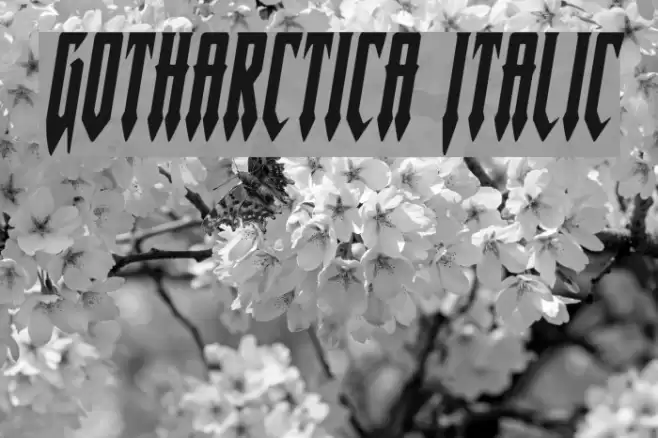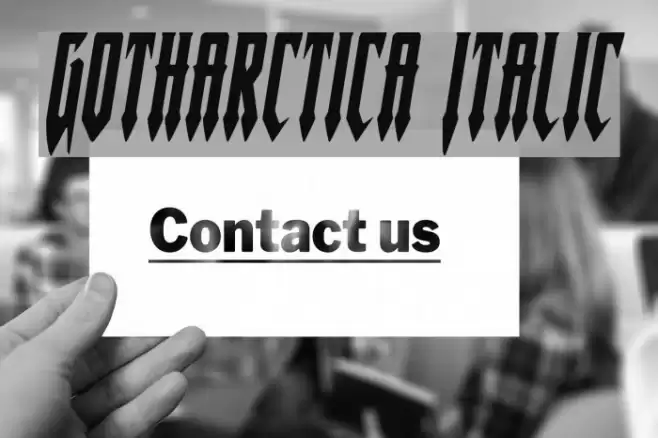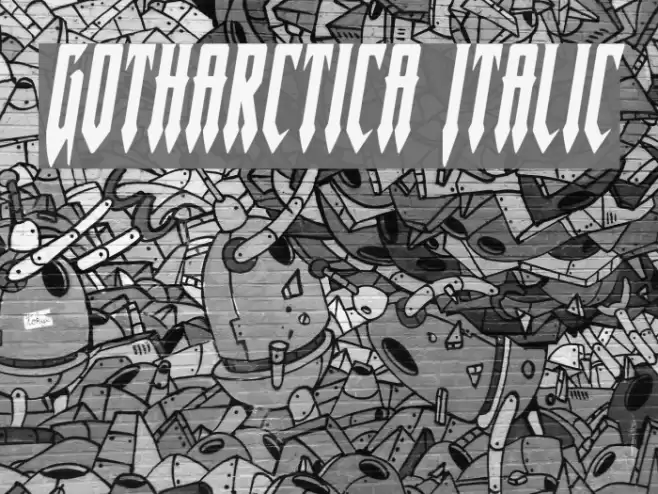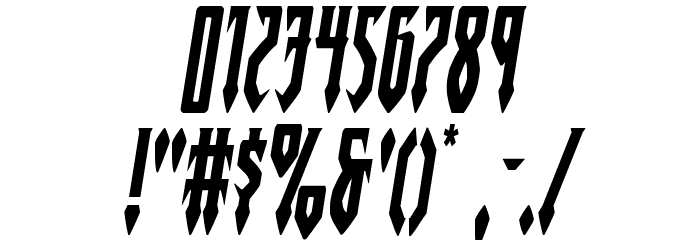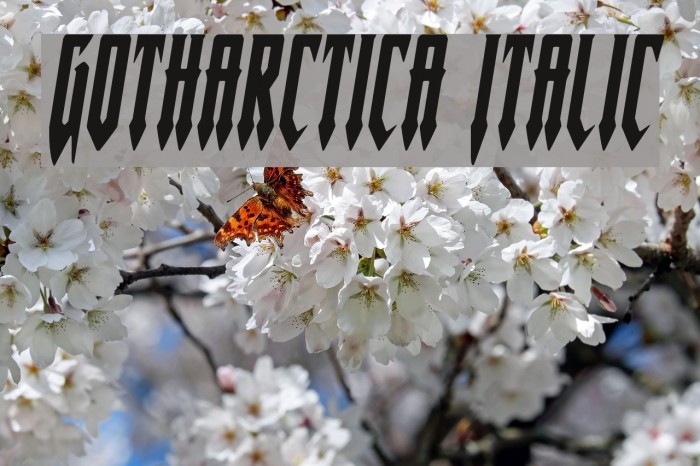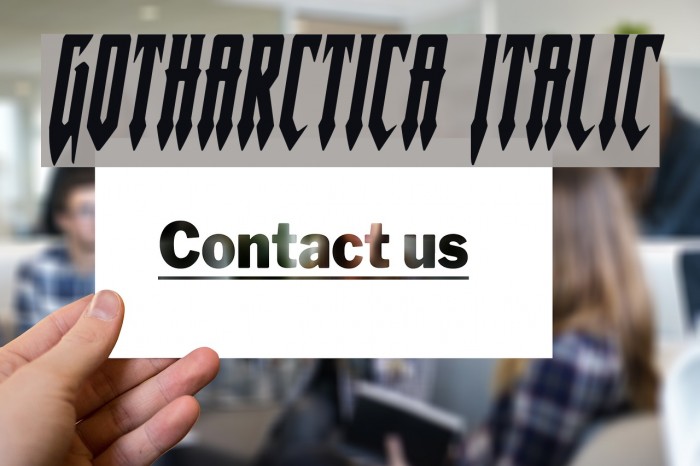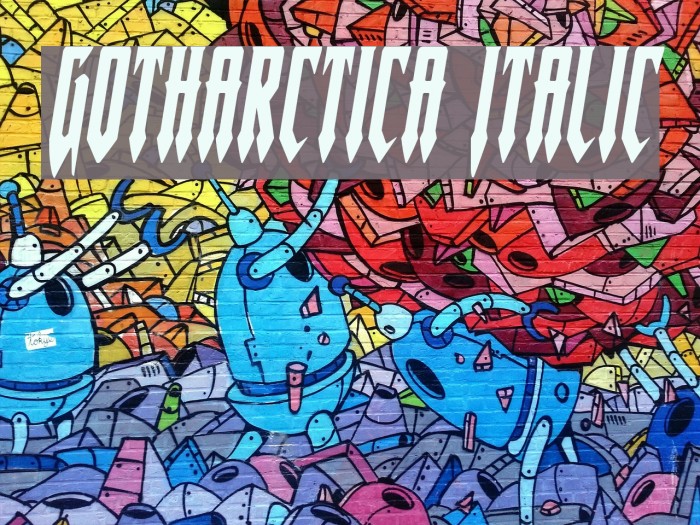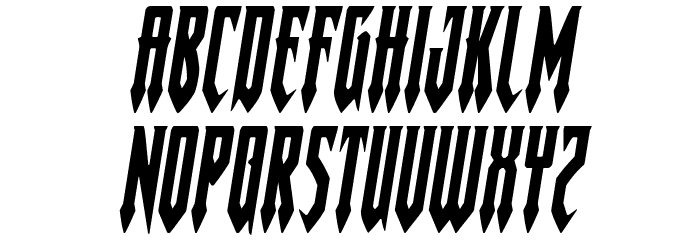
Gotharctica Italic Font
Gotharctica Italic Description
This font features a bold and dynamic style with sharp, angular lines and a distinct italic slant. The characters are elongated and have a strong presence, making them stand out prominently. The uppercase and lowercase letters maintain a consistent style, with a gothic influence evident in their pointed edges and dramatic flair. The numerals and special characters follow the same design principles, ensuring uniformity across the font. This typeface exudes a sense of power and modernity, suitable for projects that require a bold statement.
A bold, italicized font with sharp, angular lines and a gothic influence from Horror fonts.
- Proposed Projects: Ideal for branding, poster design, album covers, and any project that requires a striking, modern aesthetic.
- Character Spacing: Tight
- Overall Style: Modern, Gothic